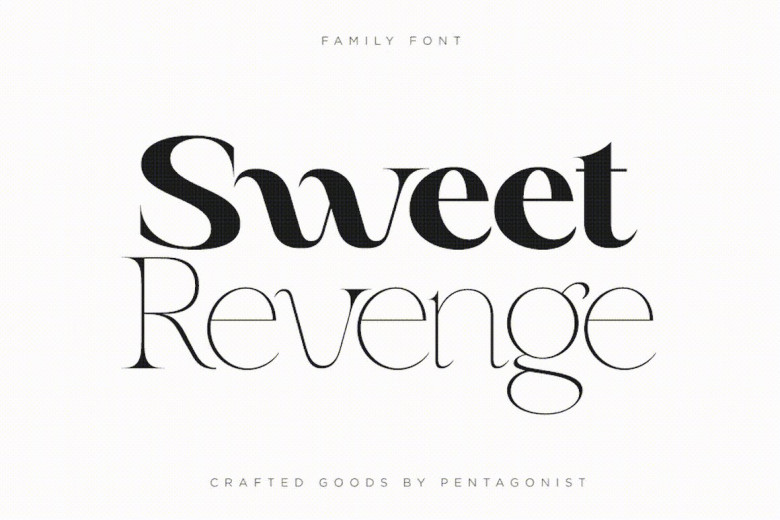
Sweet Revenge Font
Sweet Revenge is a high quality modern serif font that is designed by pentagonistudio and is available for free download and personal use. The free version provides all uppercase and lowercase letters and a few special characters too.
Sweet Revenge Serif Font